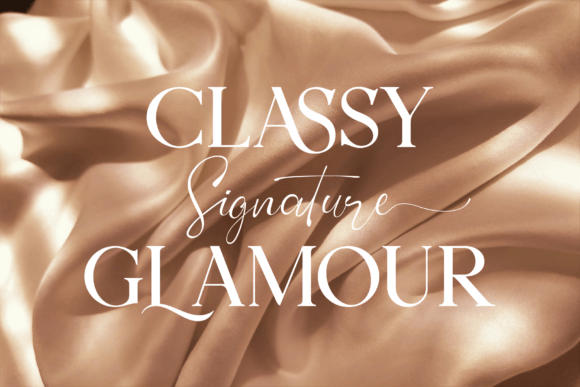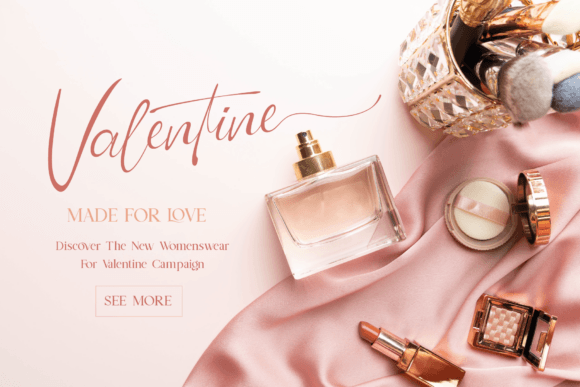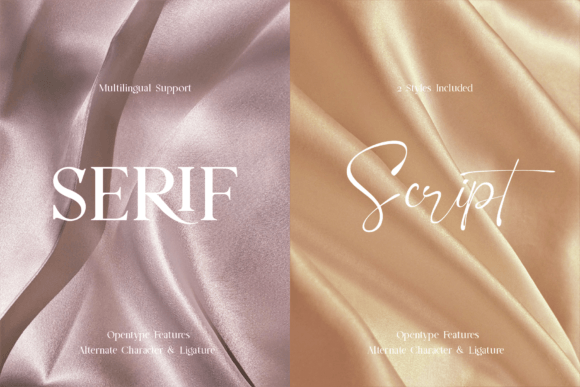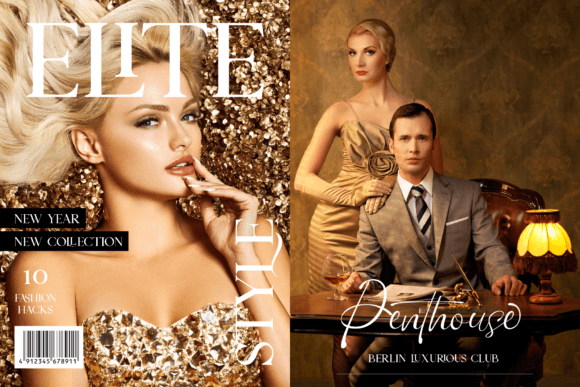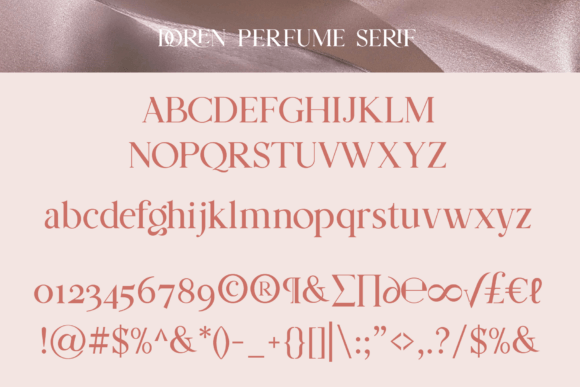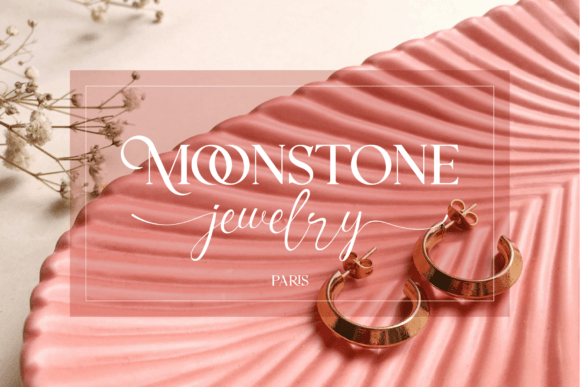
Introduction to Doren Perfume Font
Have you ever found yourself lost in a sea of design options, searching for the perfect font to elevate your creative project? The struggle is real, but what if I told you that the solution lies in the elegance and sophistication of the Doren Perfume Font? This luxurious font combines the allure of script with the refinement of serif, creating a truly unique and high-quality design resource.
As designers, we know the importance of having a versatile font that can adapt to any creative project, from branding and wedding invitations to luxury magazines and social media. The Doren Perfume Font delivers, with its transparent background and ligatures, making it a valuable addition to any design arsenal.
Doren Perfume Font
- Features a clean and elegant design, perfect for perfume, beauty, and lifestyle branding
Honest Review: Doren Perfume Font
I recently stumbled upon the Doren Perfume Font, a high quality design resource that caught my attention. As a designer, I appreciate fonts that are not only aesthetically pleasing but also versatile. The Doren Perfume Font delivers on both fronts.
What works well: ✨ The font’s elegant and sophisticated design makes it perfect for creative projects that require a touch of luxury. The transparent background is a nice touch, allowing designers to easily layer the font over other design elements. The free download is also a major plus, making it accessible to designers of all levels.
- Wide range of glyphs and characters
- Perfect for luxury branding and packaging
- Easy to customize and edit
However, there are some limitations: ⚠️ The font is only available in a limited number of weights, which may not be ideal for designers who need a wider range of options. Additionally, the font’s design may not be suitable for all types of projects, such as children’s books or playful websites.
Overall, I’m impressed with the Doren Perfume Font’s quality and design. While it may have some limitations, it’s a great resource for designers who need a high-end font for their creative projects.
The Doren Perfume Font is a high-quality design resource ideal for creative projects that require a touch of elegance. This free download features a transparent background, making it perfect for designers who want to add a unique touch to their work.
The Doren Perfume Font is perfect for a variety of creative projects, including wedding invitations, product labels, and magazine covers. Its elegant and sophisticated design makes it ideal for designers who want to add a touch of luxury to their work.